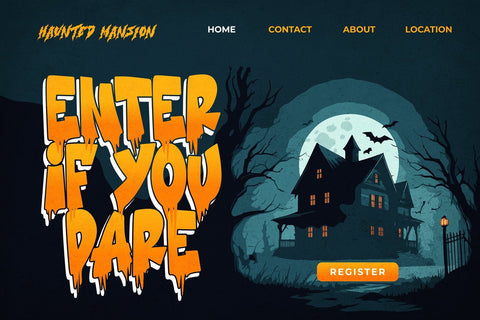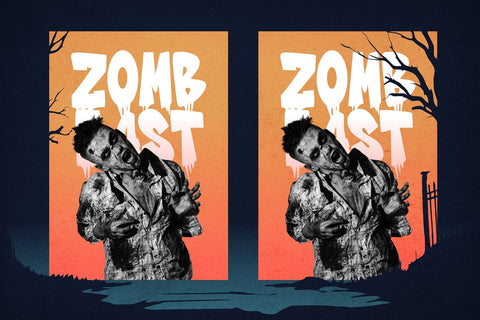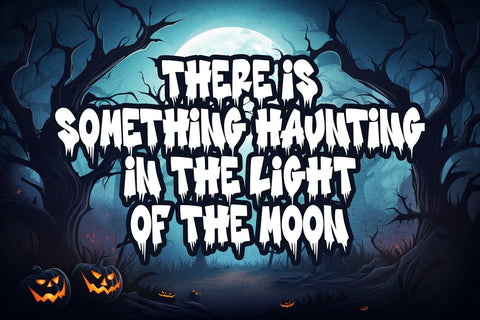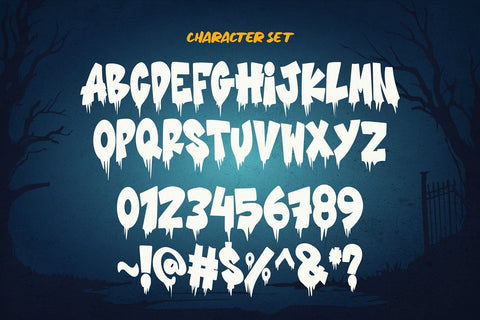
Melted Ghost - Special Halloween Font
Melted Ghost is the ultimate Halloween font that oozes with eerie charm. Designed to bring a spooky vibe to your seasonal projects, this font blends playful creepiness with a unique, drippy effect that feels like it's straight out of a haunted house.